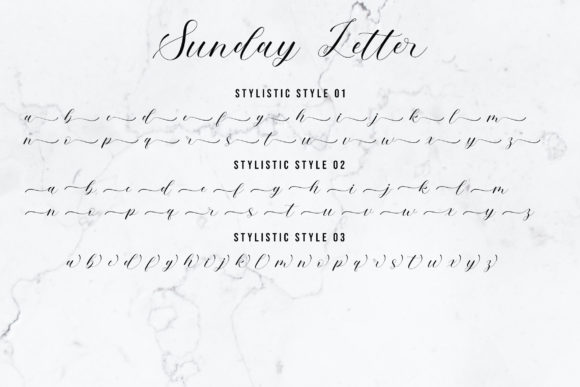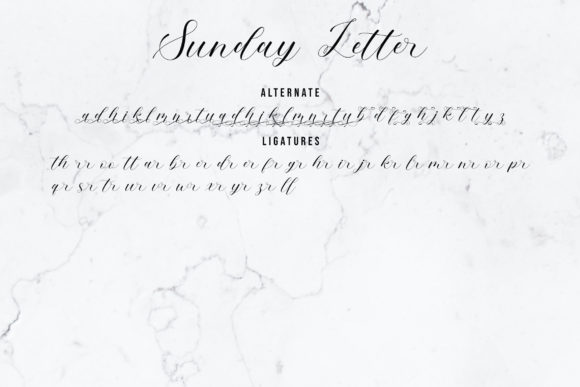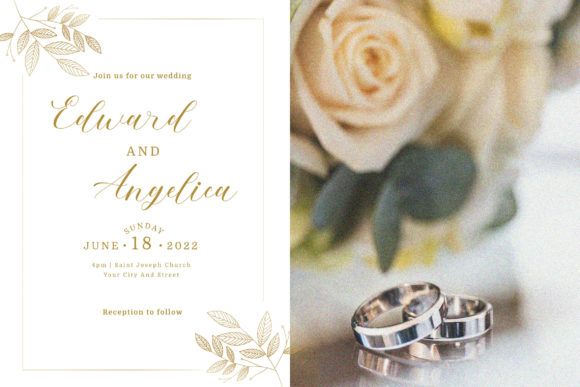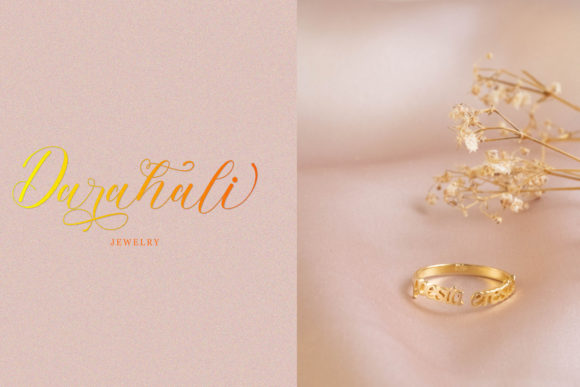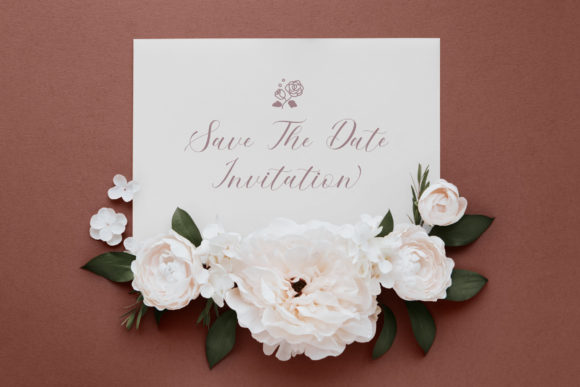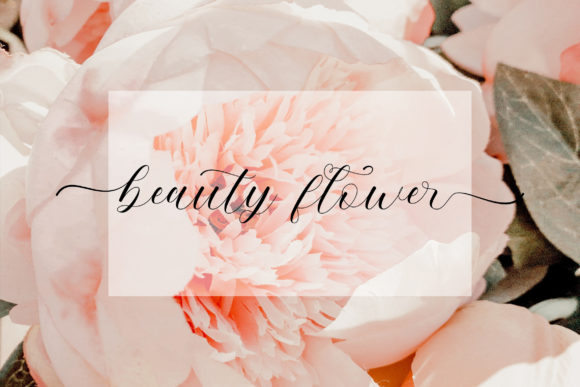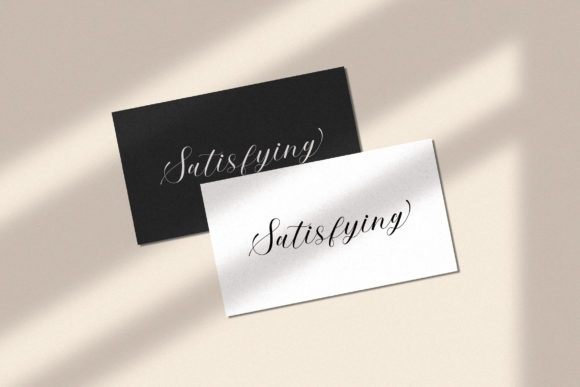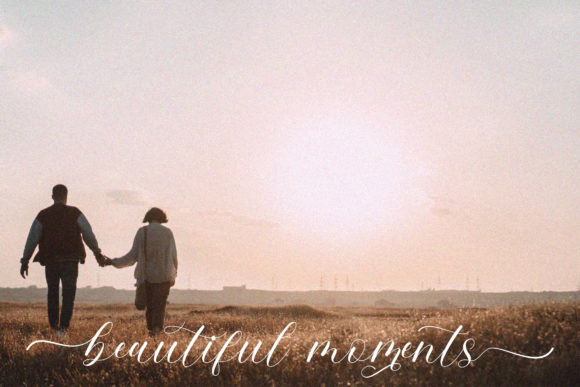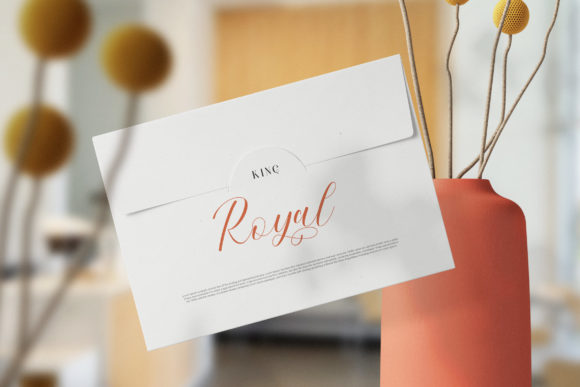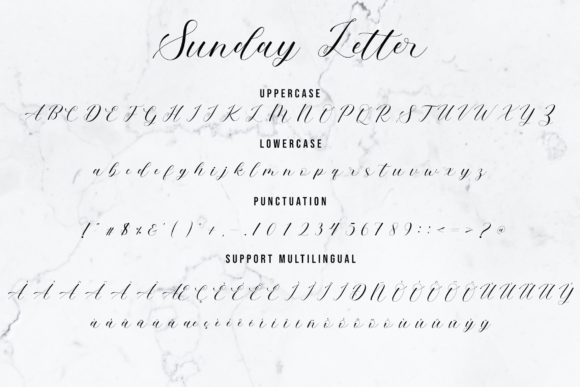
Sunday Letter Font
About Sunday Letter Font
Sunday Letter emanates a captivating blend of charm and elegance, making it a font that transcends mere letters to become a visual expression of sophistication. This stunning typeface is particularly well-suited for a range of designs, including wedding invitations, thank-you cards, quotes, greeting cards, logos, business cards, and any other creative project that benefits from a touch of handwritten grace.
The font’s charm lies in its ability to evoke a sense of warmth and personal touch, making it an excellent choice for occasions like weddings and special events. When applied to wedding invitations, Sunday Letter adds an intimate and elegant feel, setting the tone for a memorable celebration. The font’s graceful strokes contribute to the overall aesthetic, creating invitations that are both visually striking and emotionally resonant.
Thank-you cards and greeting cards adorned with Sunday Letter benefit from its charming and elegant appearance. The handwritten touch imparts a sense of sincerity and authenticity, making the messages more heartfelt and personal. This font becomes a conduit for conveying emotions, turning each card into a work of art that expresses gratitude or conveys heartfelt sentiments.
Quotes, whether for social media or print, come alive with the graceful allure of Sunday Letter. The font’s elegance enhances the visual impact of inspirational and motivational phrases, adding a touch of sophistication to the presentation. Its versatility allows it to seamlessly integrate into various design contexts, ensuring a harmonious and aesthetically pleasing result.
When used in logos and business cards, Sunday Letter becomes a symbol of refined branding. The font’s handwritten charm creates a unique and memorable visual identity, contributing to a brand image that is both approachable and sophisticated. Its versatility makes it adaptable to a range of industries, from fashion to lifestyle and beyond.
One notable feature of Sunday Letter is its PUA encoding, providing easy access to a wealth of glyphs and swashes. This feature enhances the font’s versatility, allowing designers to customize and personalize their designs effortlessly. This flexibility ensures that Sunday Letter remains a valuable and adaptable tool for creative professionals.
In summary, Sunday Letter stands as a charming and elegant font, perfectly suited for a variety of design applications. Its ability to convey warmth, sophistication, and a handwritten touch makes it a versatile choice that adds a touch of refined beauty to wedding materials, cards, quotes, logos, business cards, and beyond. The PUA encoding further elevates its usability, providing designers with a wealth of creative possibilities.